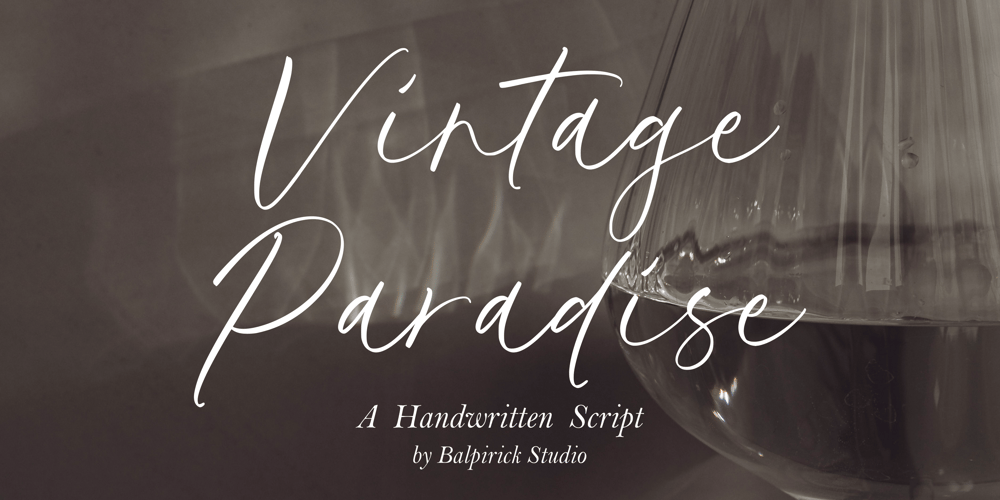
Vintage Paradise Font Family was designed by Restu Angga and published by Balpirick. Vintage Paradise contains 1 styles and family package options. Introducing by Balpirick Studio.Vintage Paradise is a Handwritten Script Font that’s perfect for adding a personal touch to your design projects! With its natural, organic feel and unique character.Crafted with care and attention to detail, this font is incredibly versatile and can be used for a range of design projects, including logos, branding, invitations, and more. Its modern, handwritten style gives it a unique character that’s sure to make an impact. – also multilingual supportEnjoy the font! Feel free to comment or feedback!Thank you!